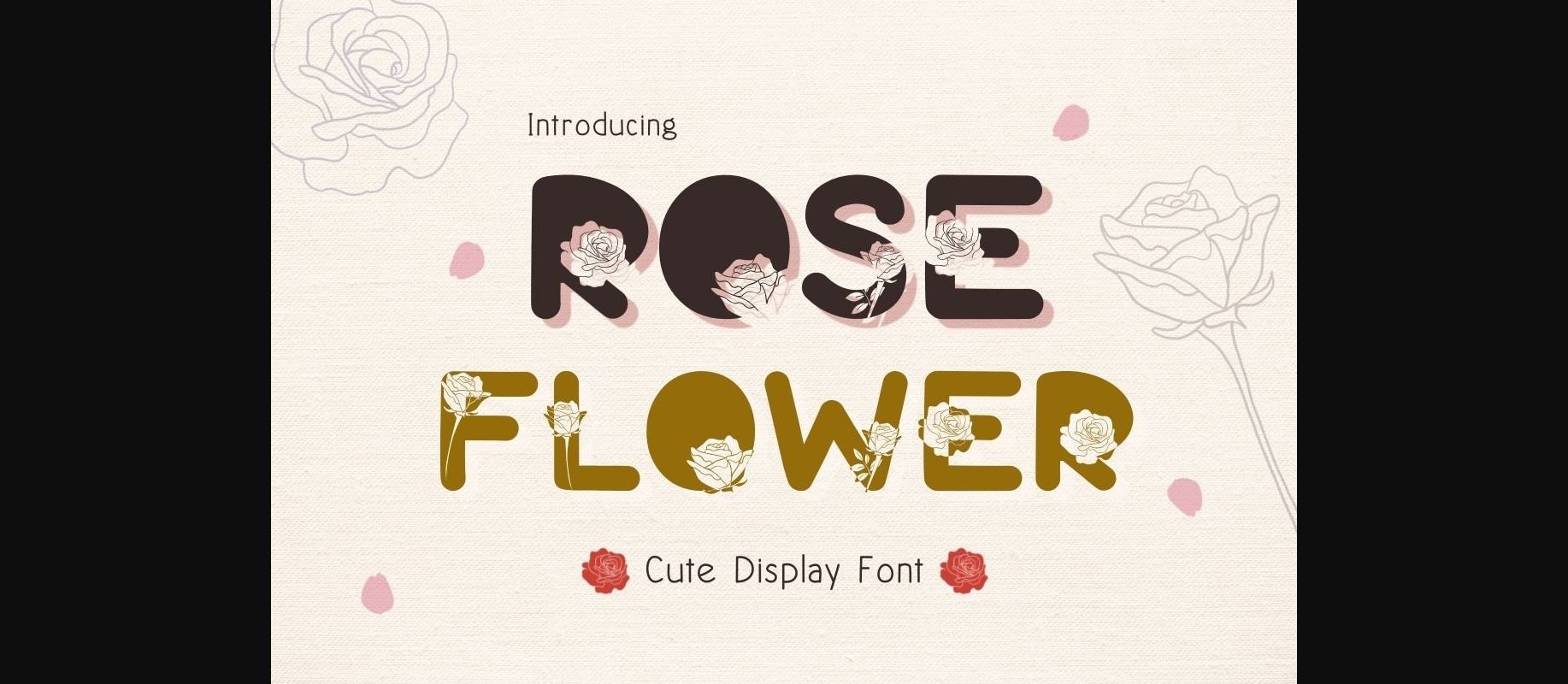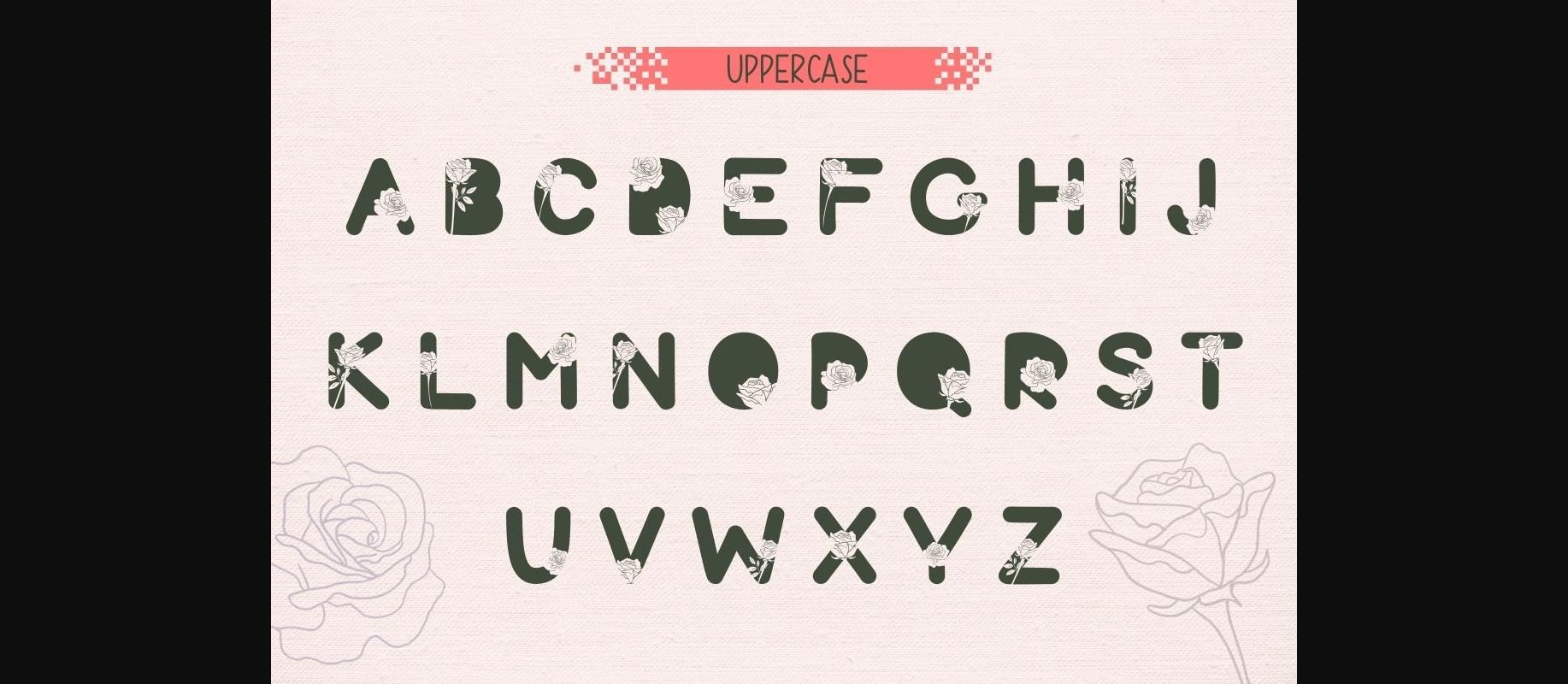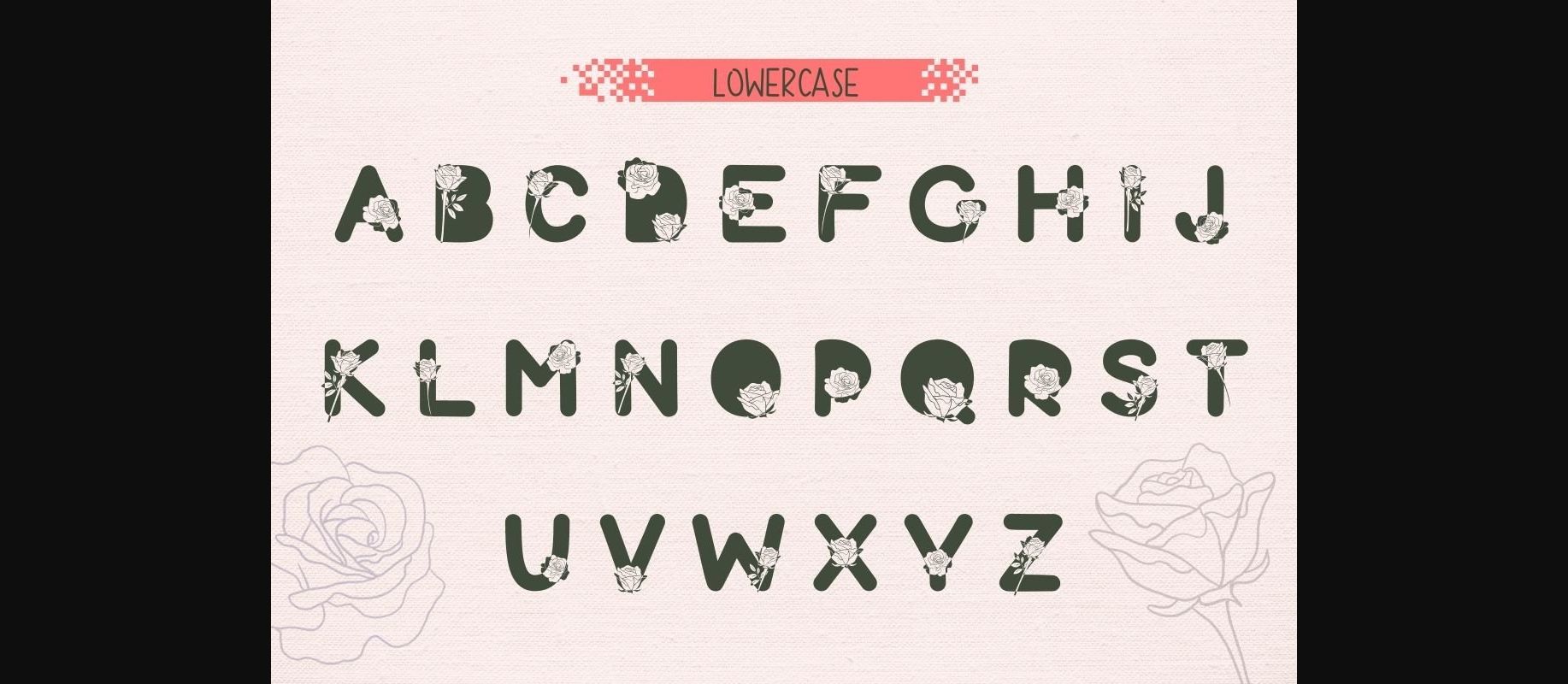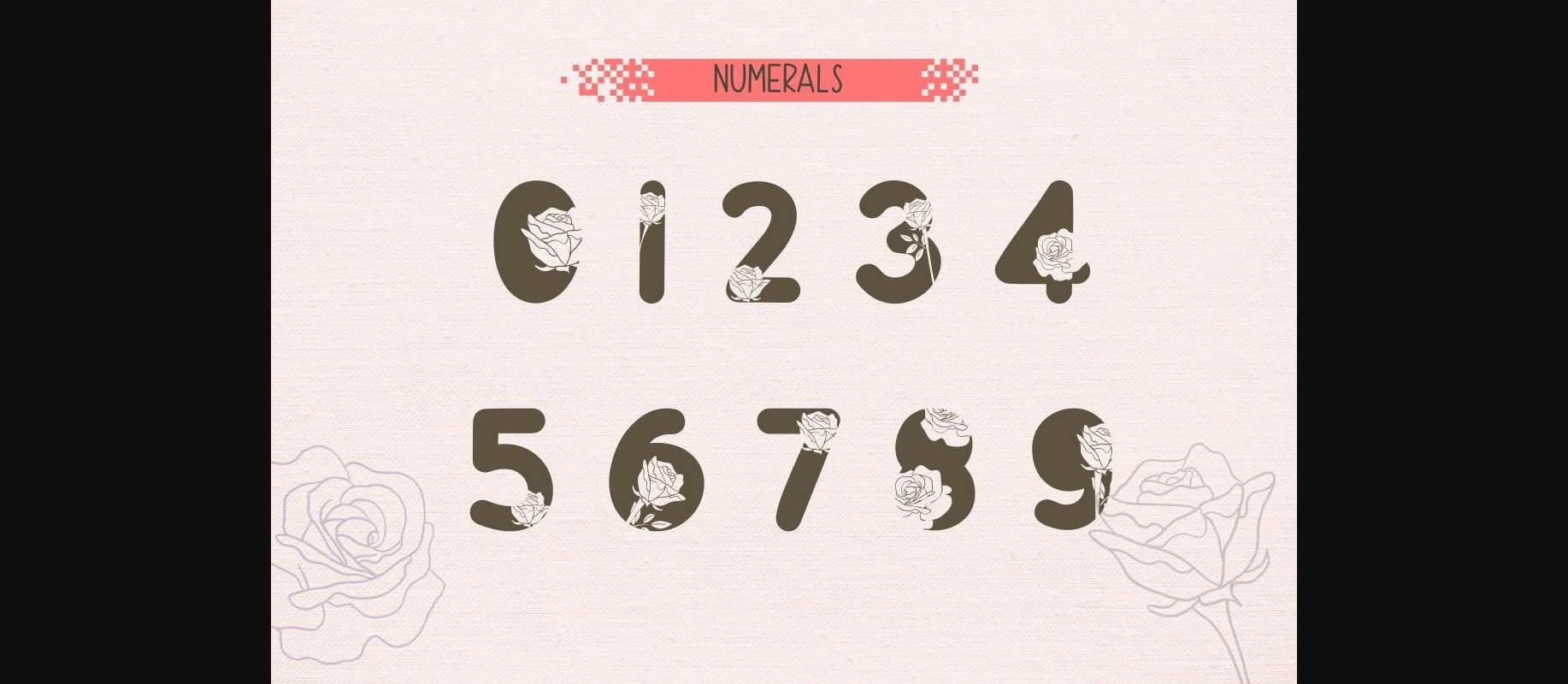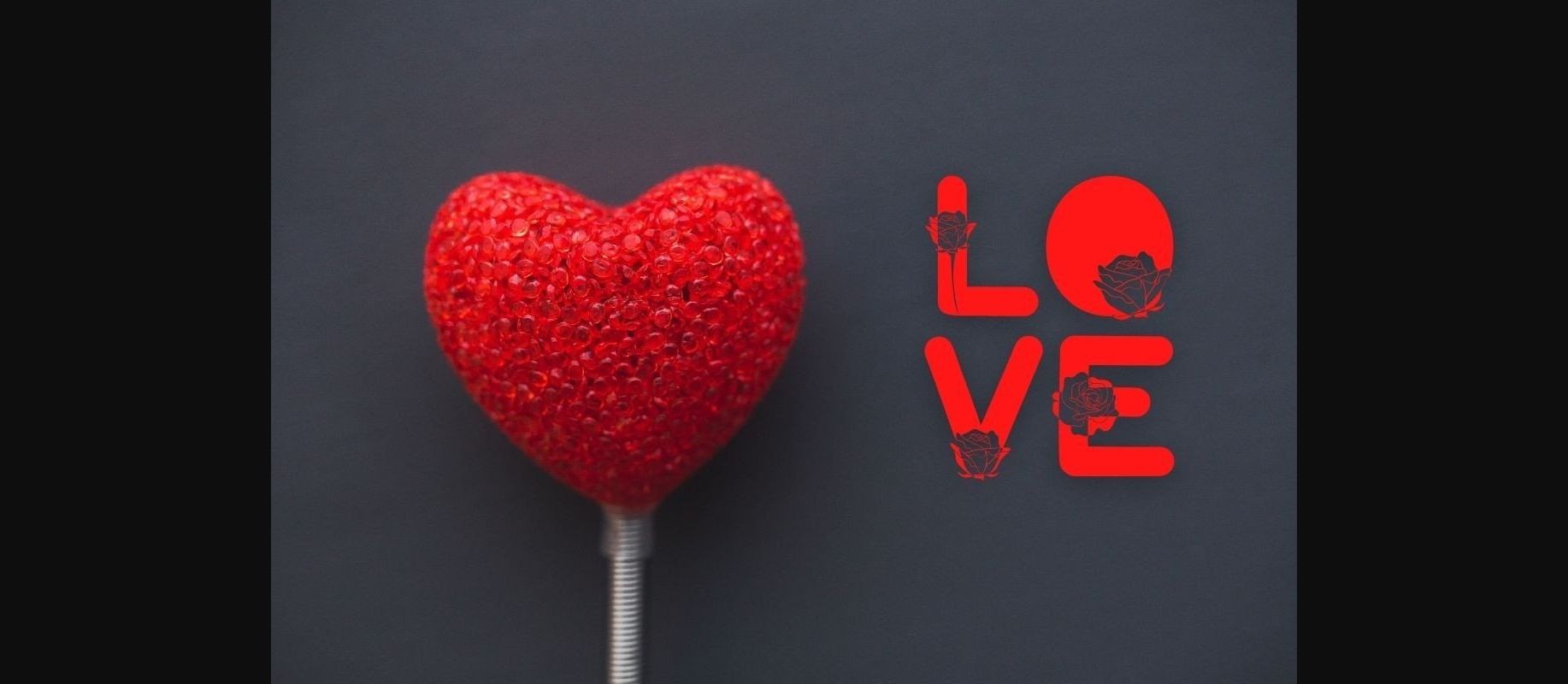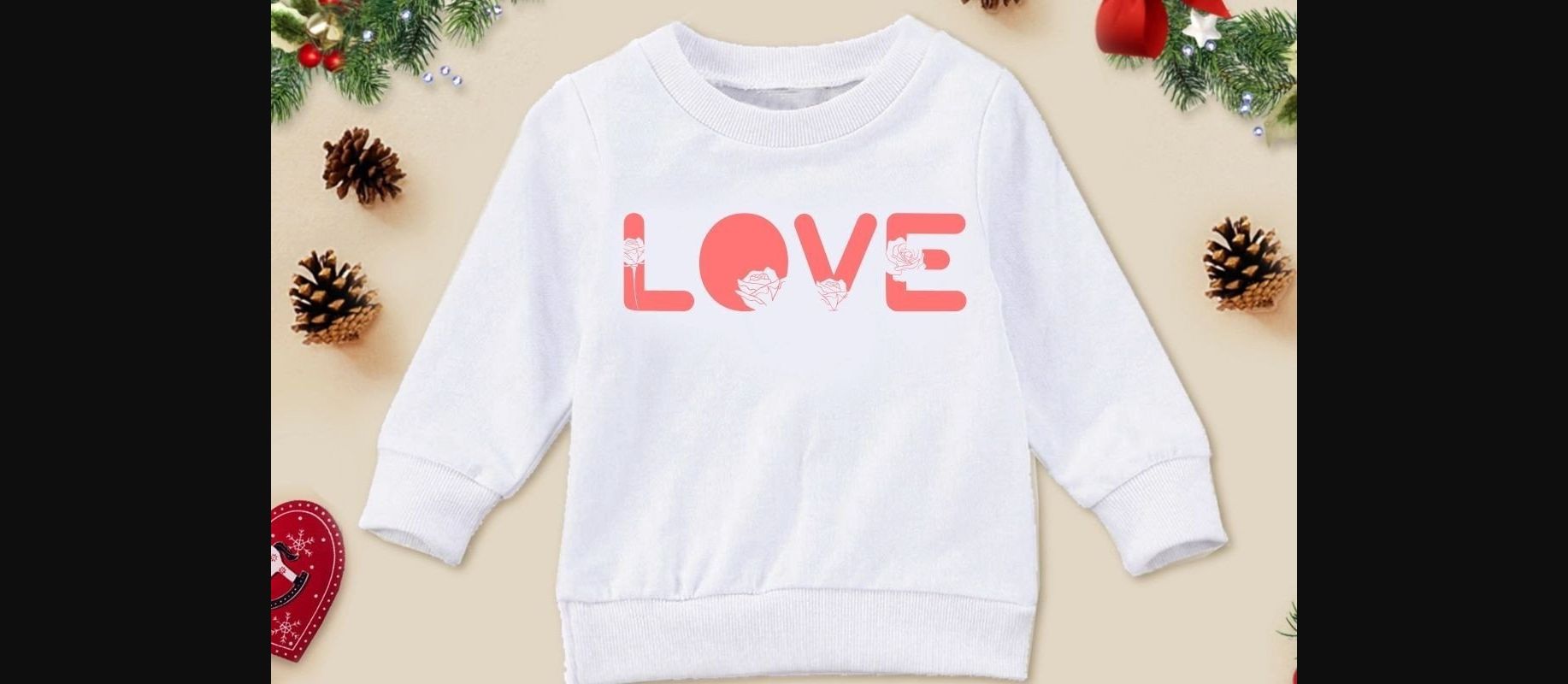
Rose Flower Font
About Rose Flower Font
Rose Flower is a cute display font. Rose Flower Font, when used in the design, makes the design look cute and exotic. You can use it to create valentine cards, wedding invitations, beautiful stationary art, social media posts, and much more!